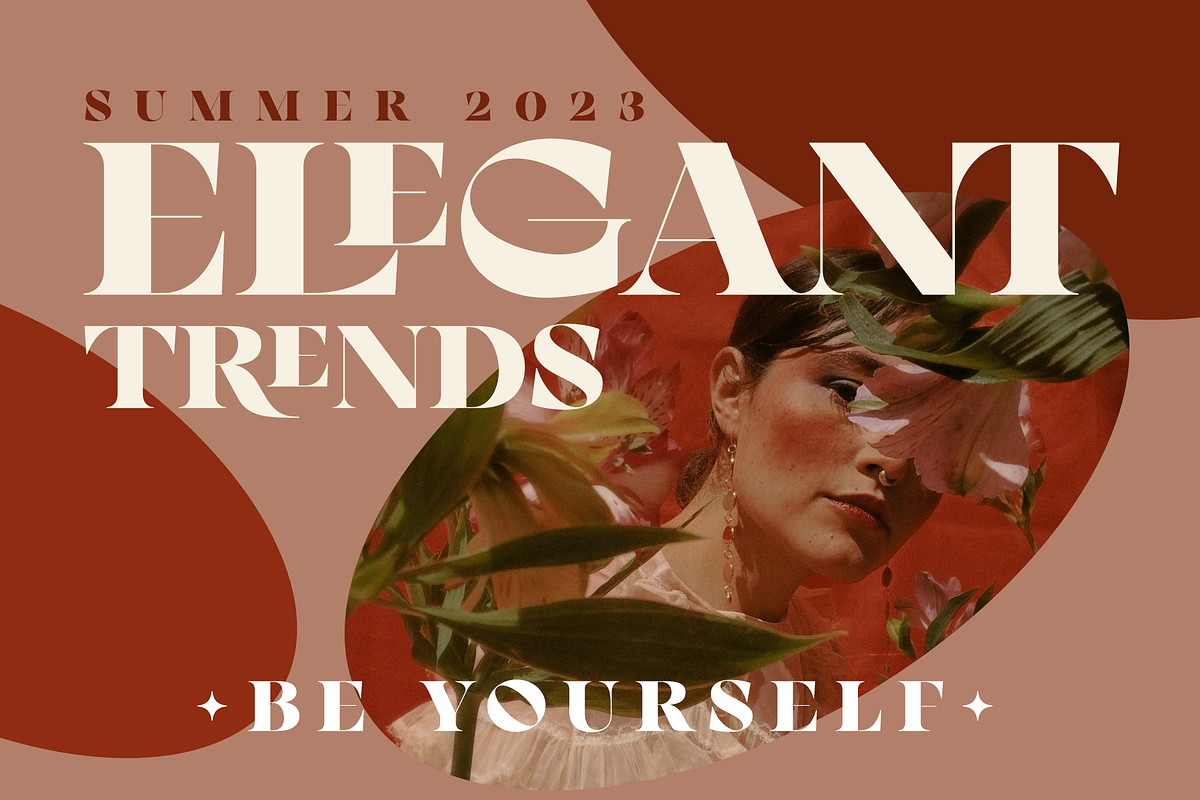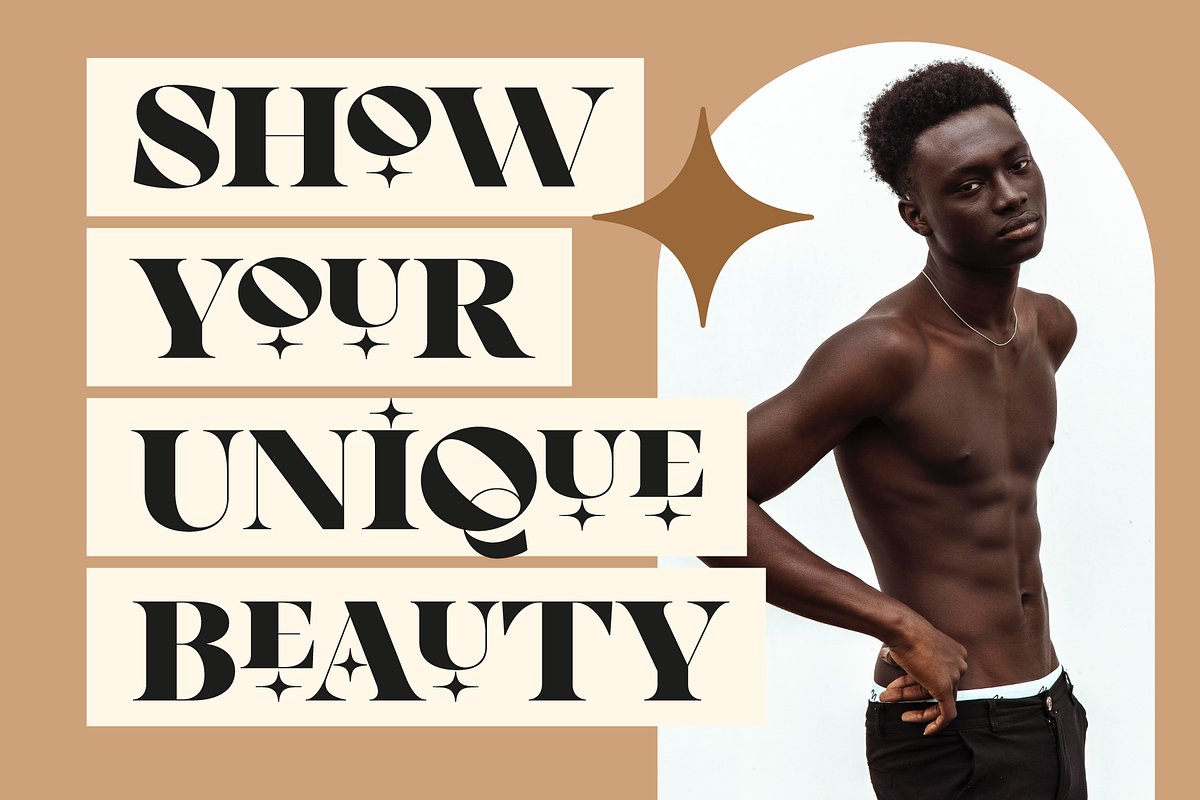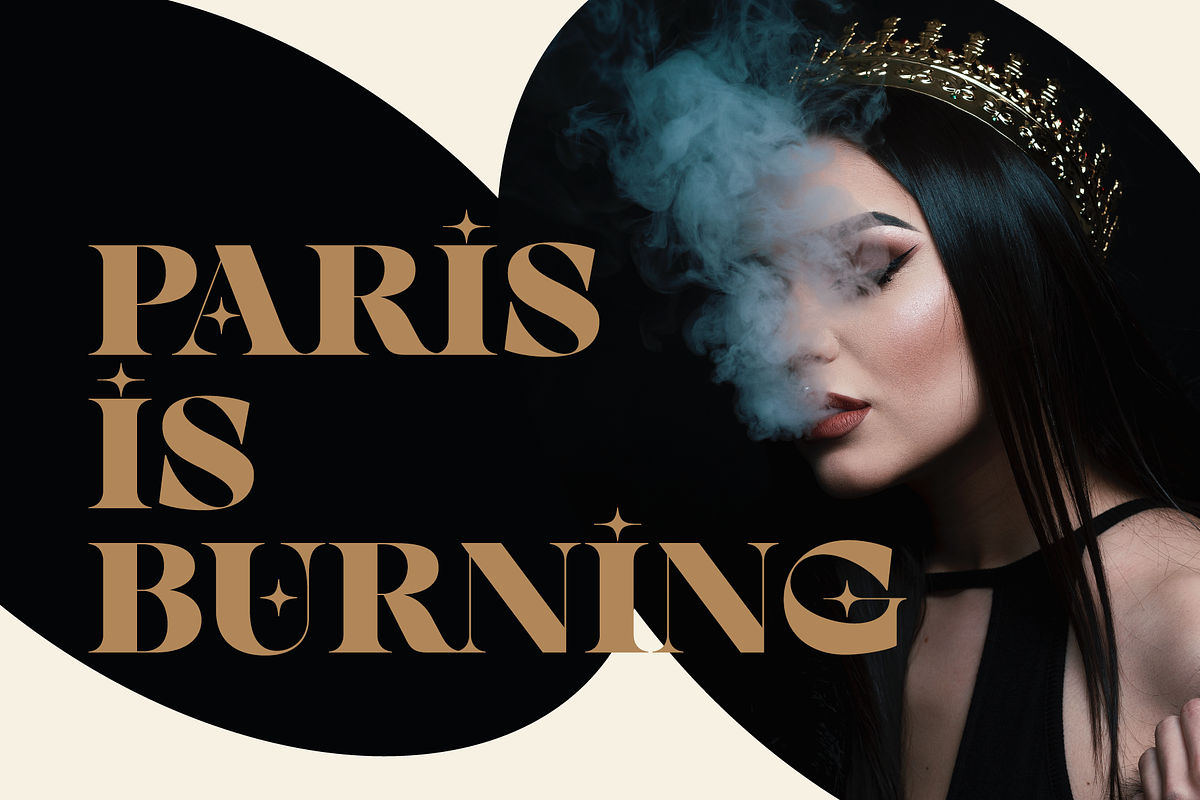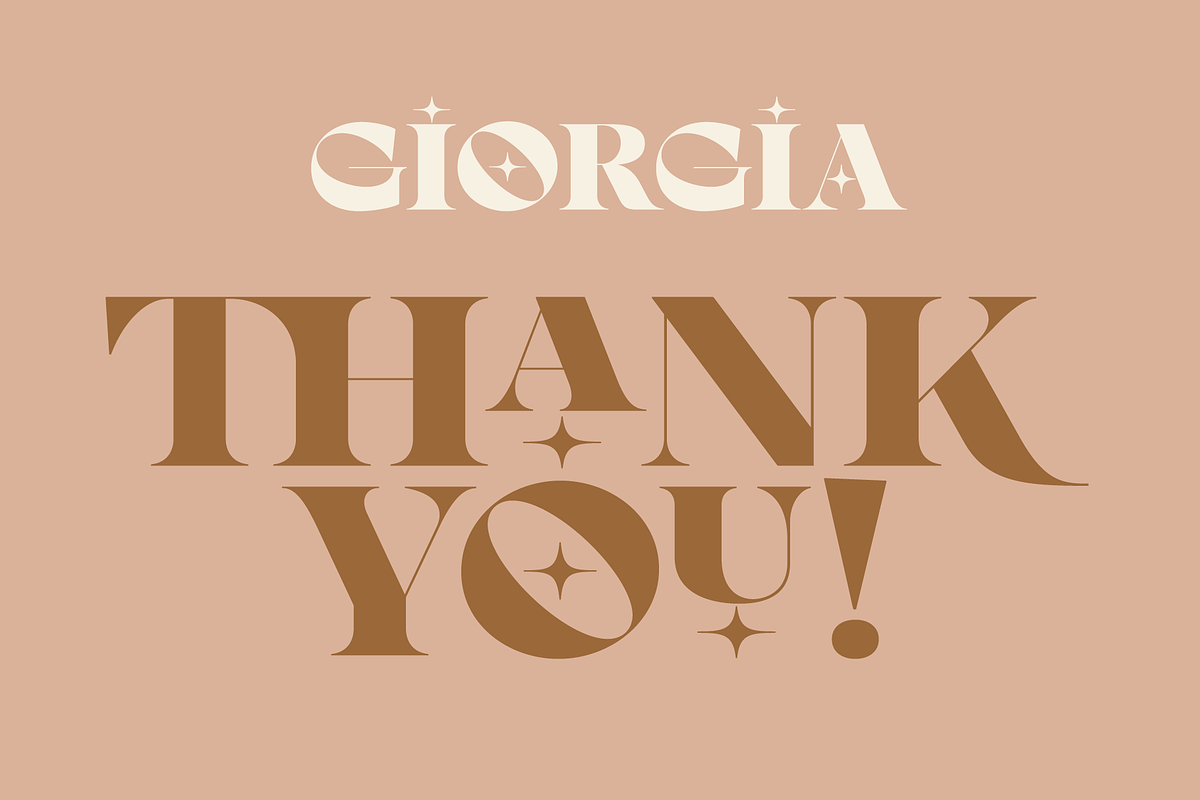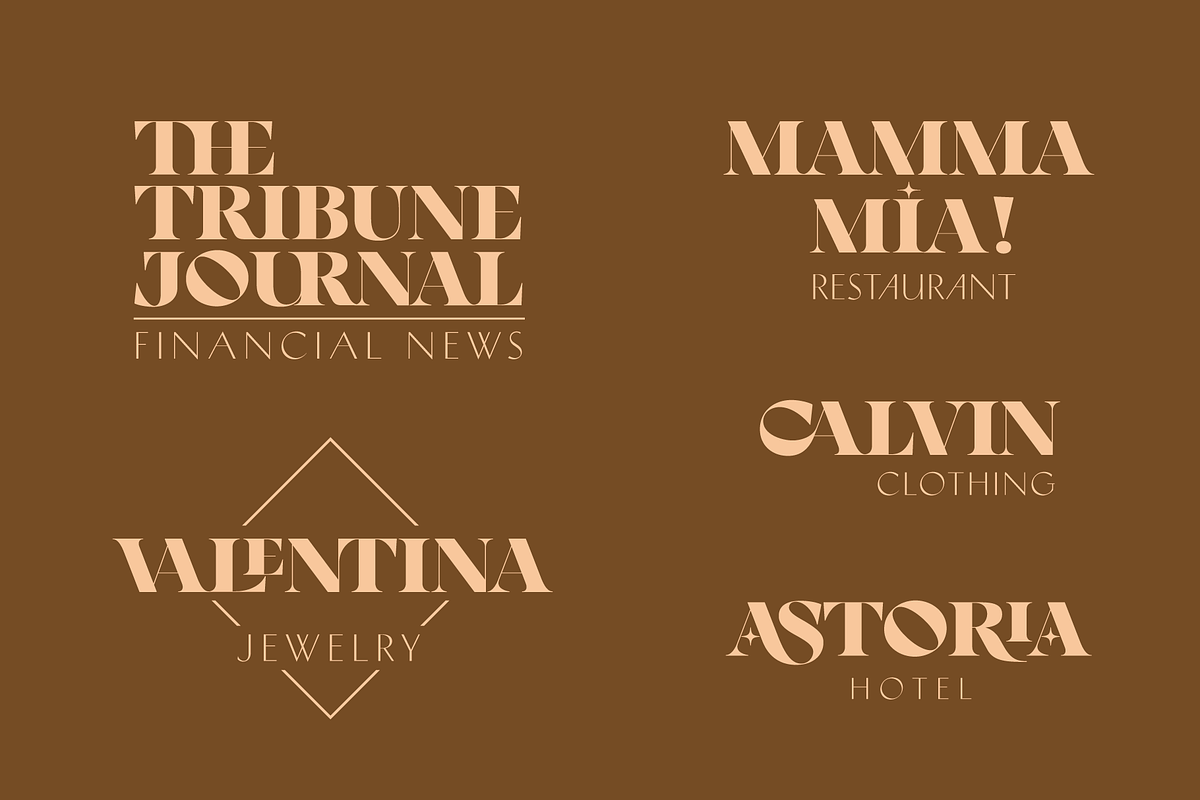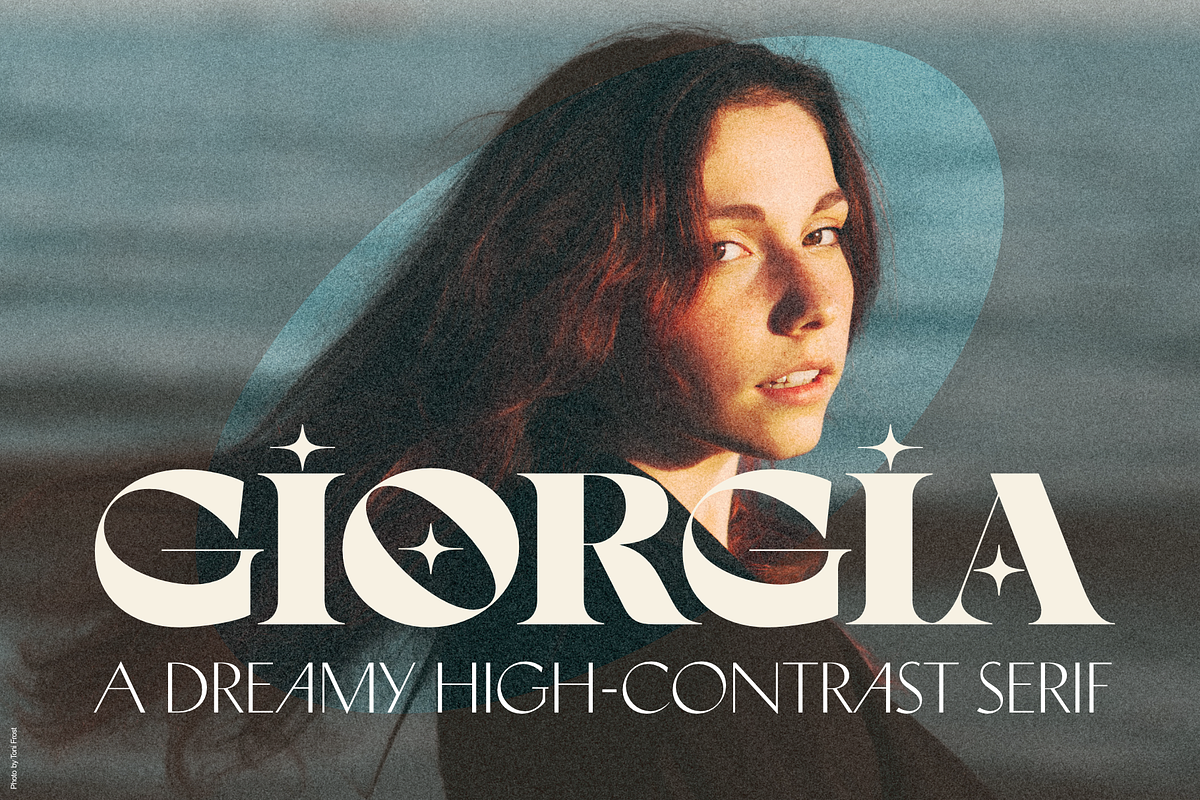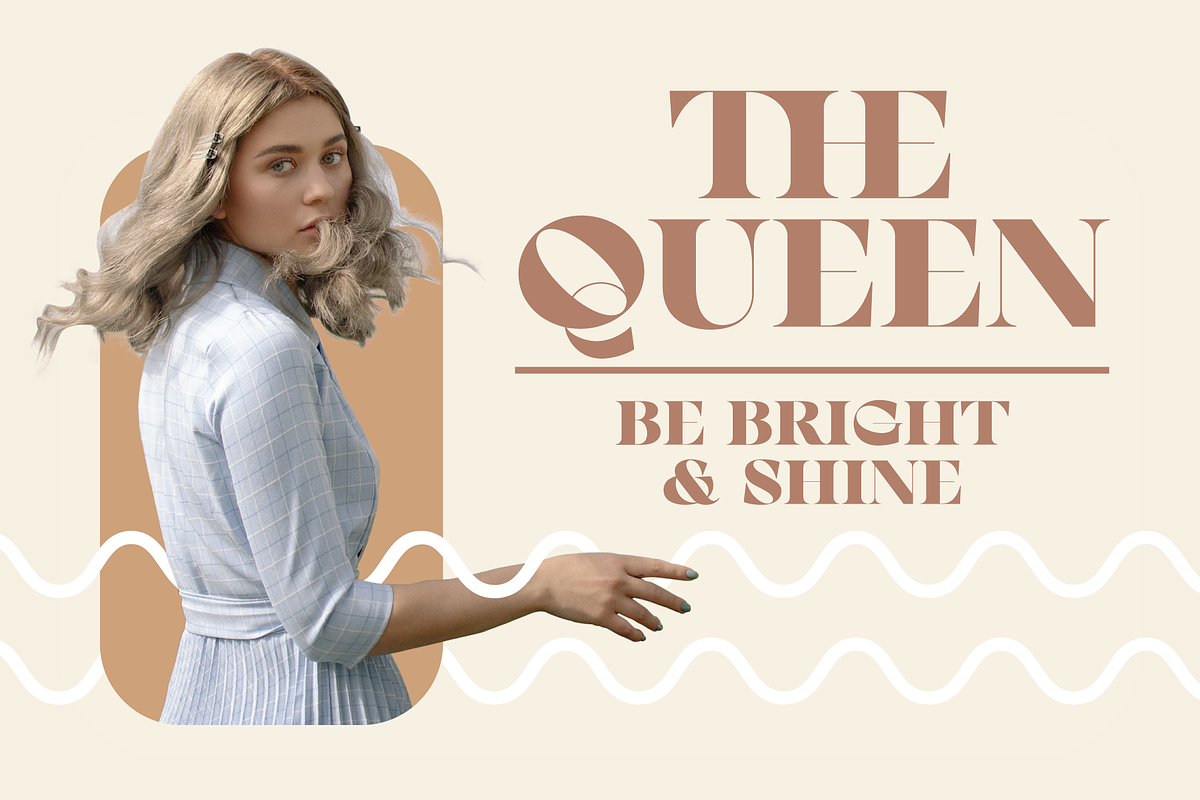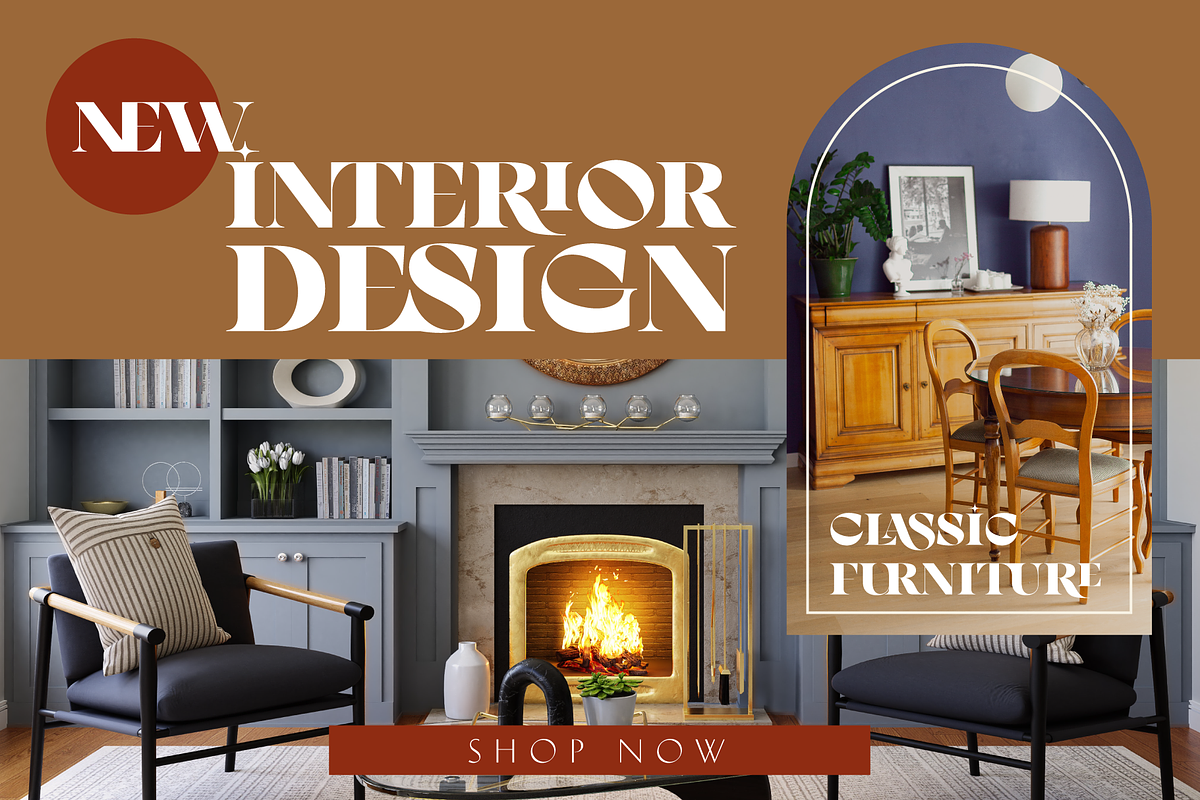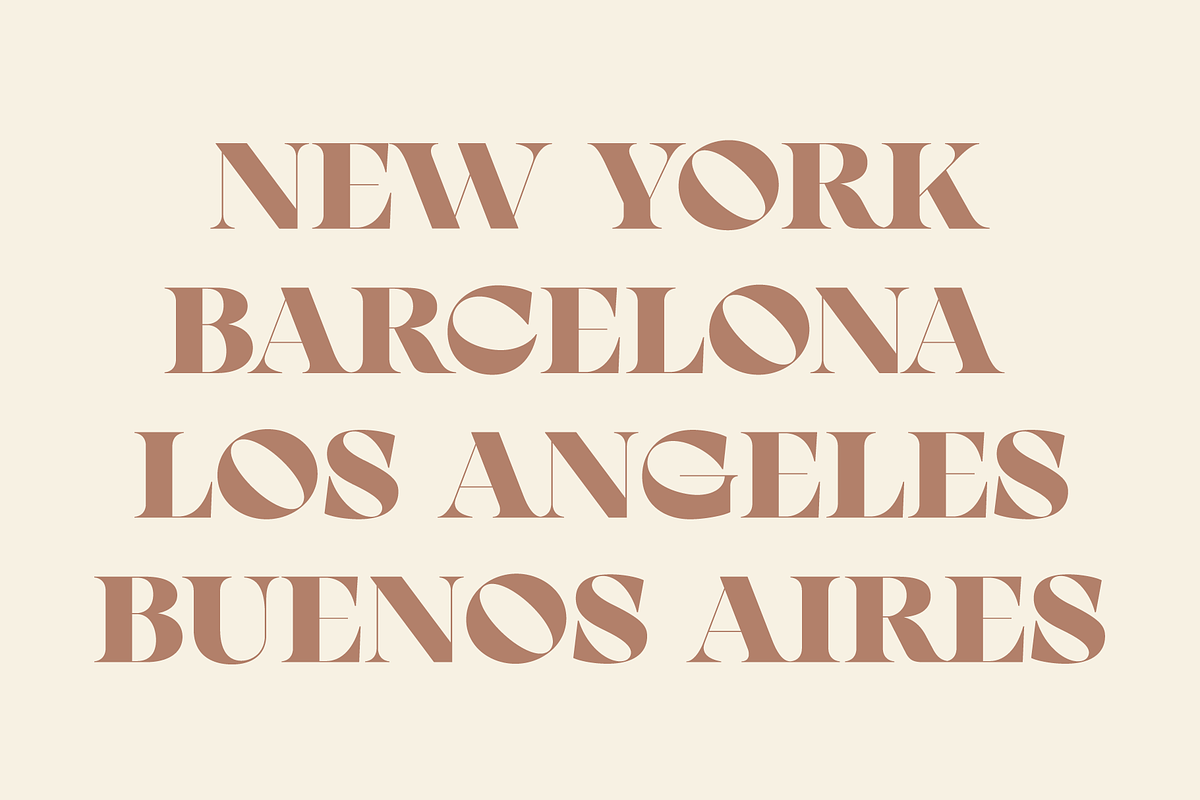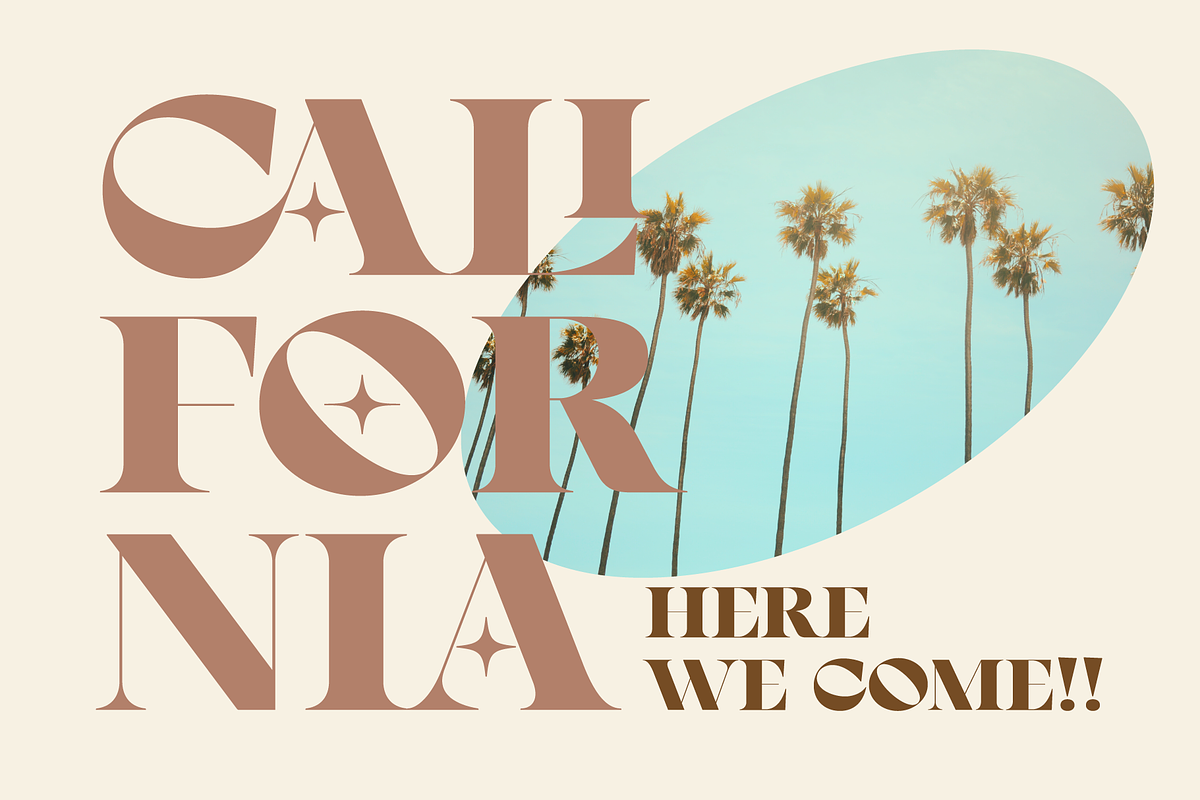
Giorgia: A Dreamy HighContrast Serif
Elevate your designs with Giorgia, a sophisticated serif typeface that blends the timeless allure of high-contrast editorial typography with a touch of celestial magic.
Designed for the modern storyteller, Giorgia stands out with its dramatic difference between thick stems and razor-thin hairlines, creating a look that is both bold and delicate. Its defining characteristic—the optional star-shaped counters and decorative sparkles—adds a layer of whimsy and nostalgia, making it perfect for brands that want to whisper elegance rather than shout it.
Why you’ll love Giorgia:
Editorial Ready: Perfectly balanced for high-impact headlines, magazine covers, and luxury packaging.
Celestial Charm: Unique decorative alternates infused with star motifs give your logos and titles a bespoke, magical feel.
Global Reach: Includes extensive multilingual support, covering a wide range of Western and Central European languages, so your message resonates everywhere.
Perfect for: Fashion branding, wedding invitations, beauty packaging, social media quotes, and editorial layouts requiring a touch of "Je ne sais quoi."
- Ligatures.